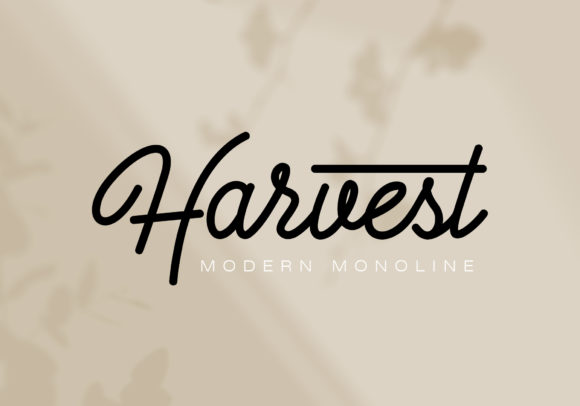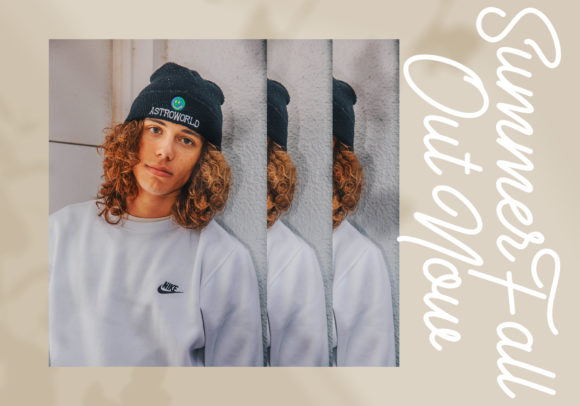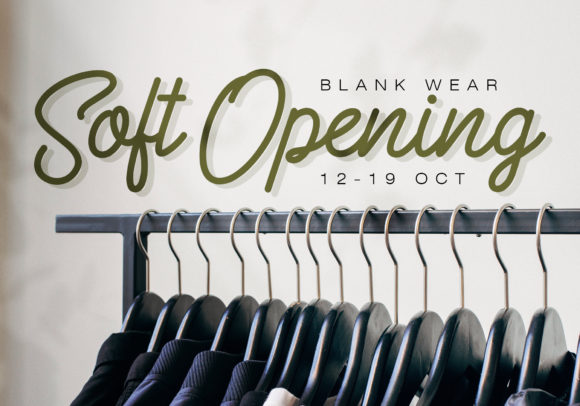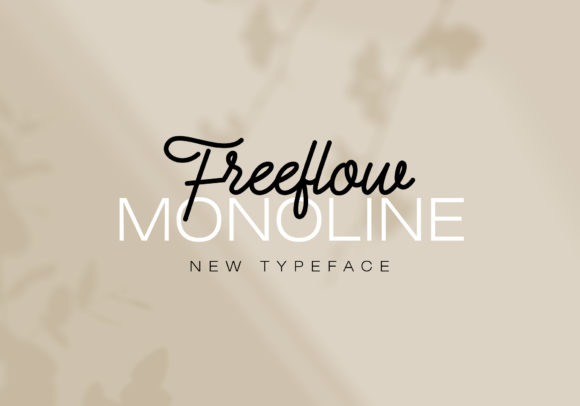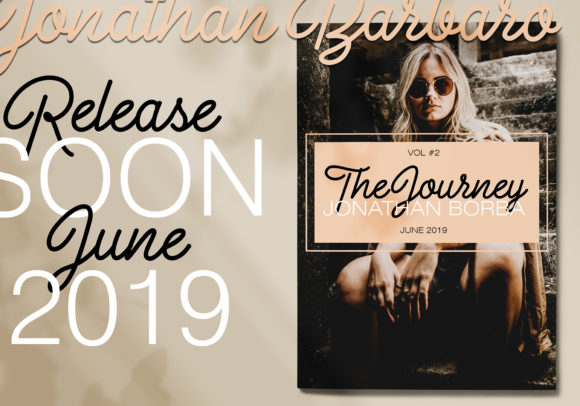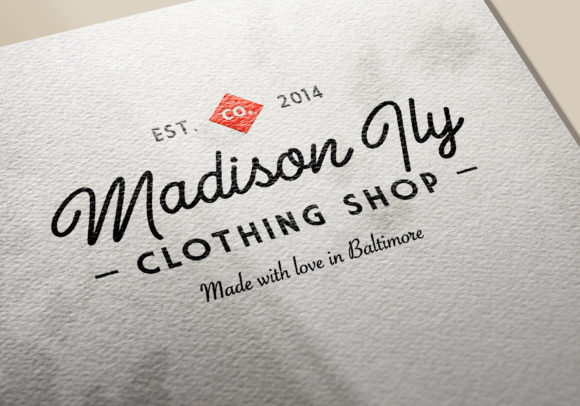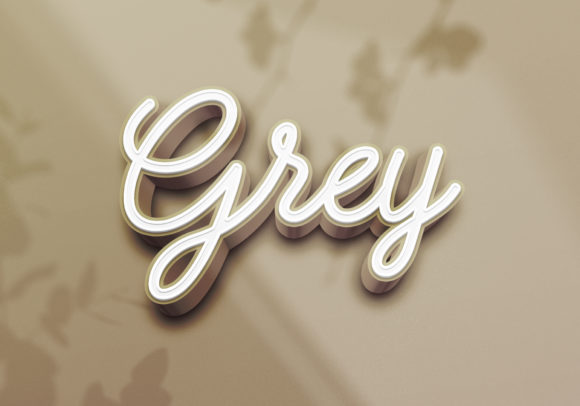
Freeflow Font
Freeflow is a simple, yet beautiful monoline script font with an elegant vibe. It will effortlessly add a touch of sophistication to any design project!